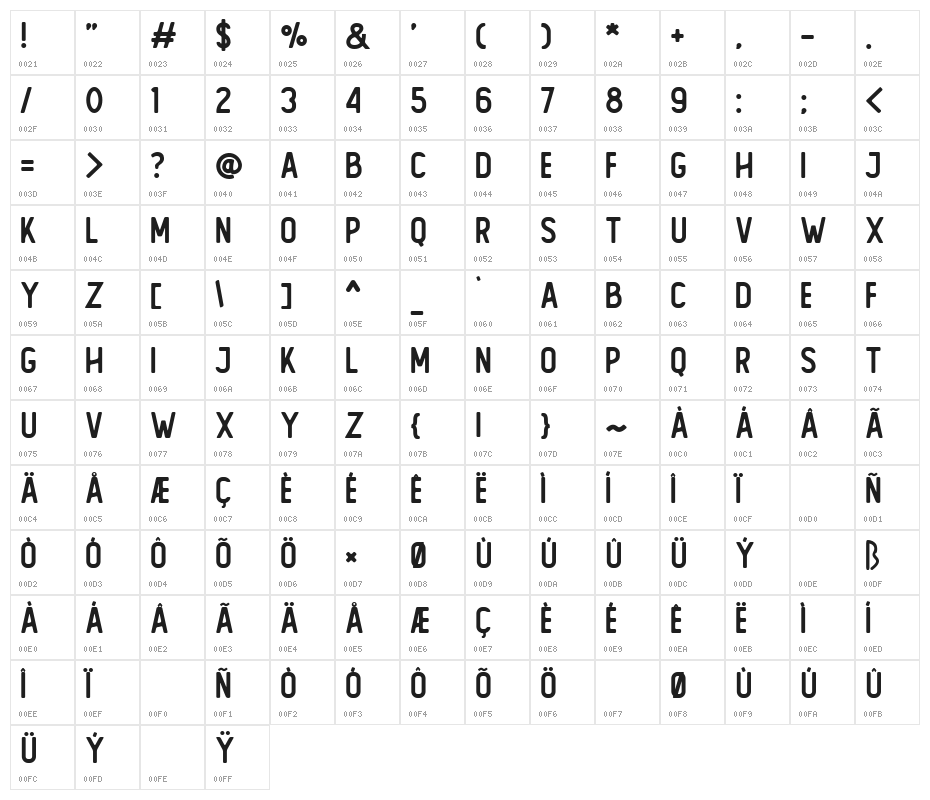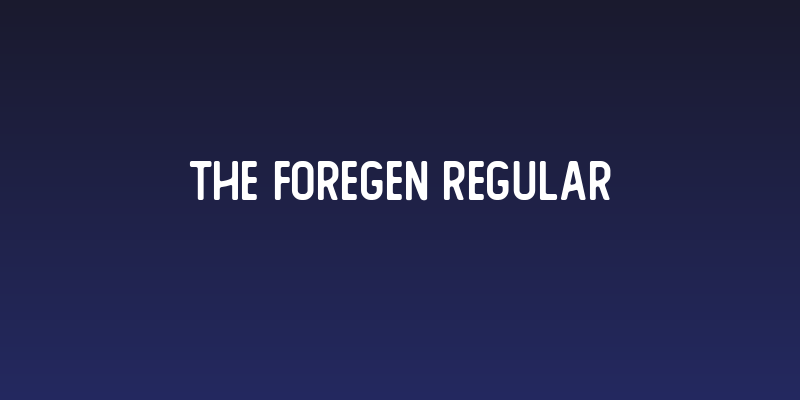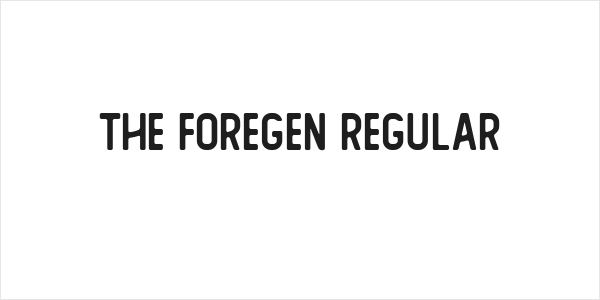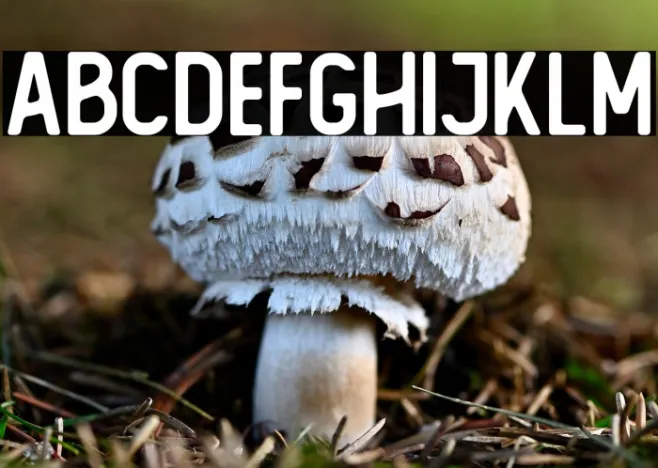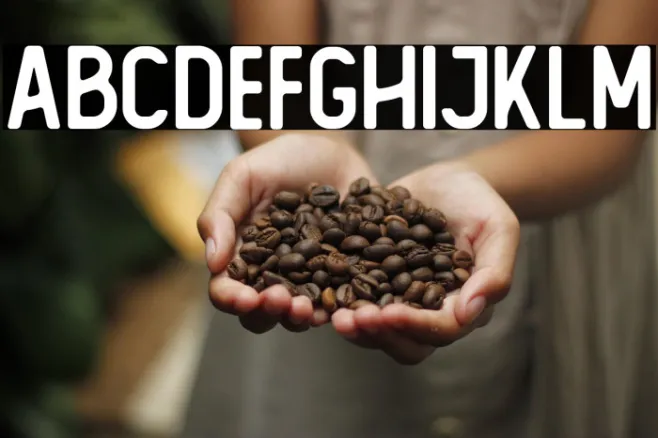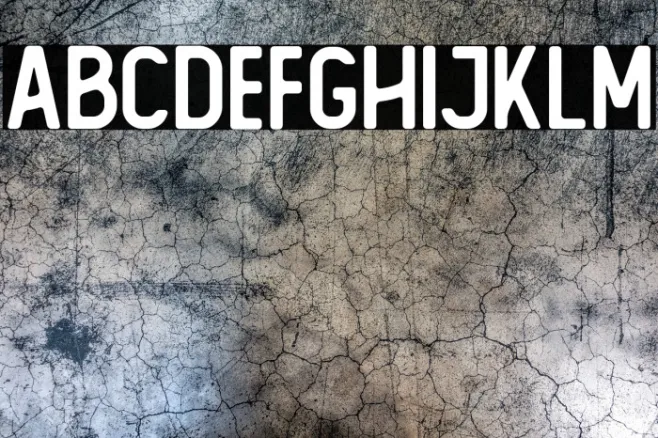
The Foregen Regular Font
The Foregen Regular Description
This font features a bold, rounded sans-serif style with consistent stroke thickness, giving it a modern and approachable appearance. The characters are well-proportioned, with a slightly condensed width that maintains readability while maximizing space efficiency. The rounded edges soften the overall look, making it suitable for both casual and professional applications. The numerals and special characters are designed with the same rounded and bold characteristics, ensuring uniformity across all glyphs. This font is versatile, offering a clean and friendly aesthetic that can be used in various design contexts.
| Use Case | Headlines, Logos, Signage |
| Proposed Projects | Ideal for branding, signage, headlines, and digital content where a friendly yet professional tone is desired. |